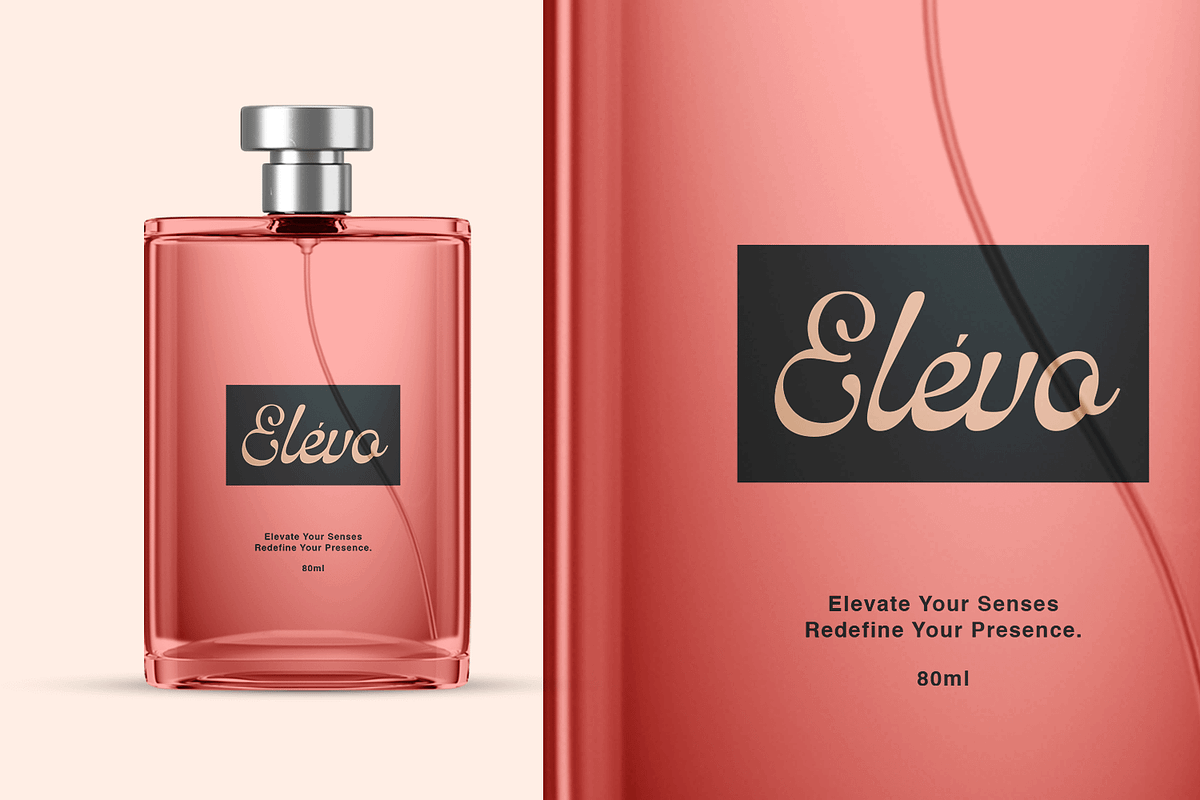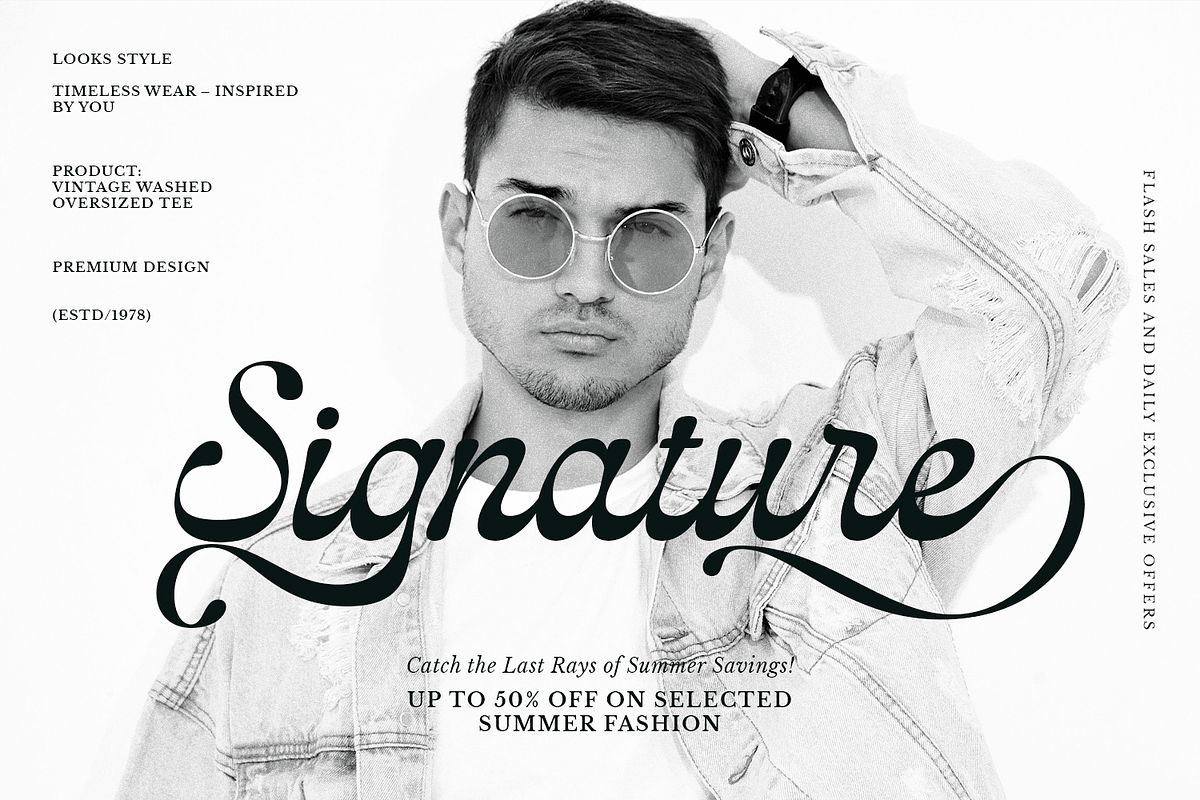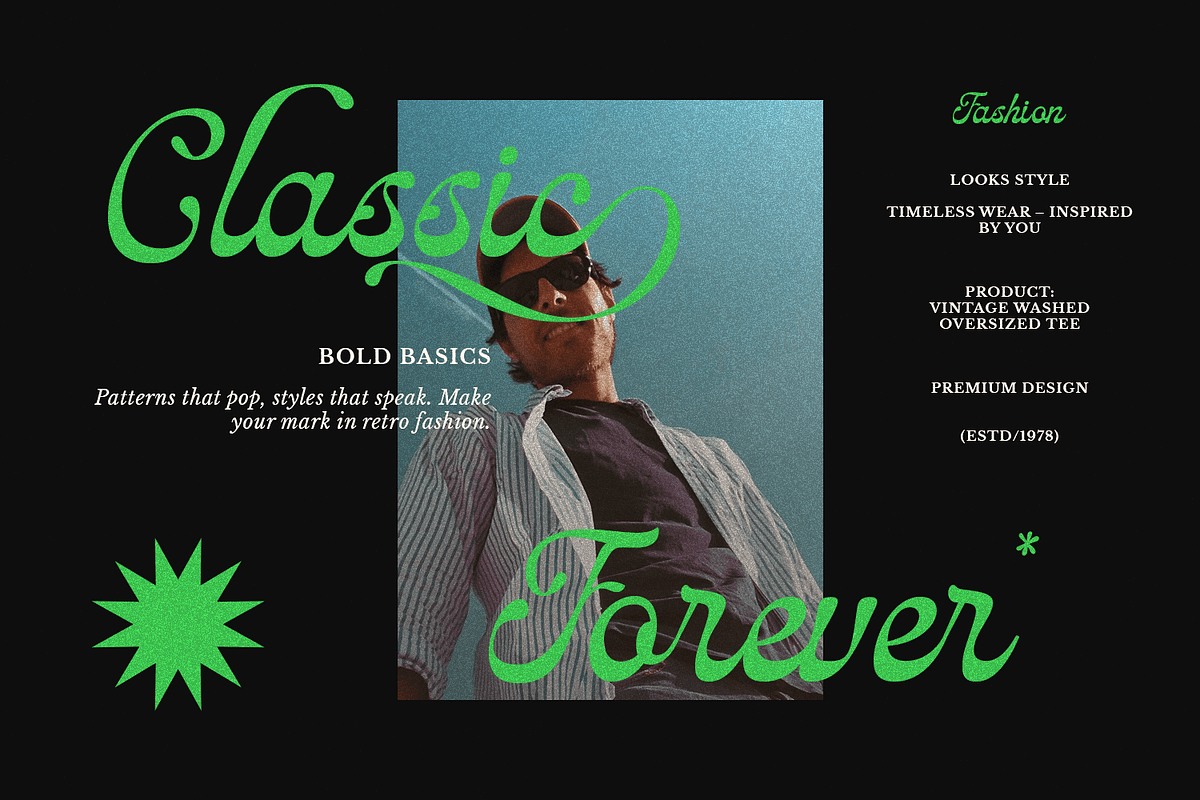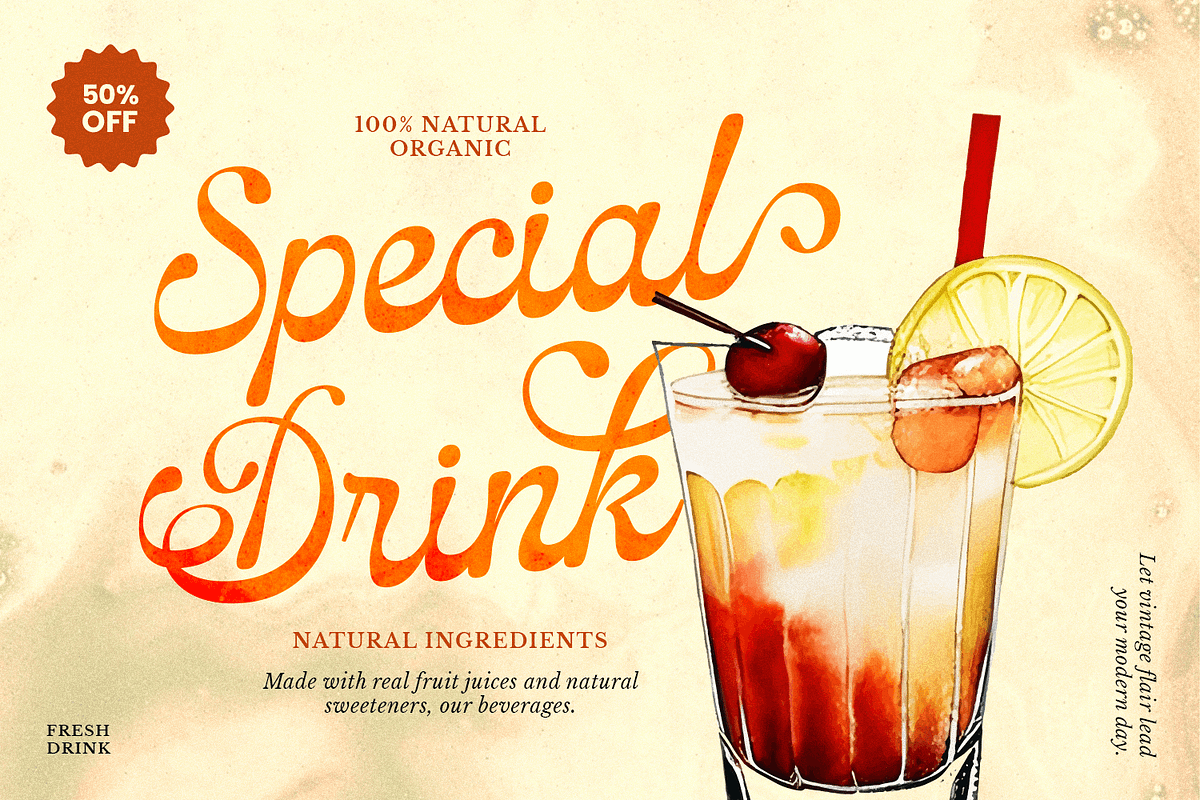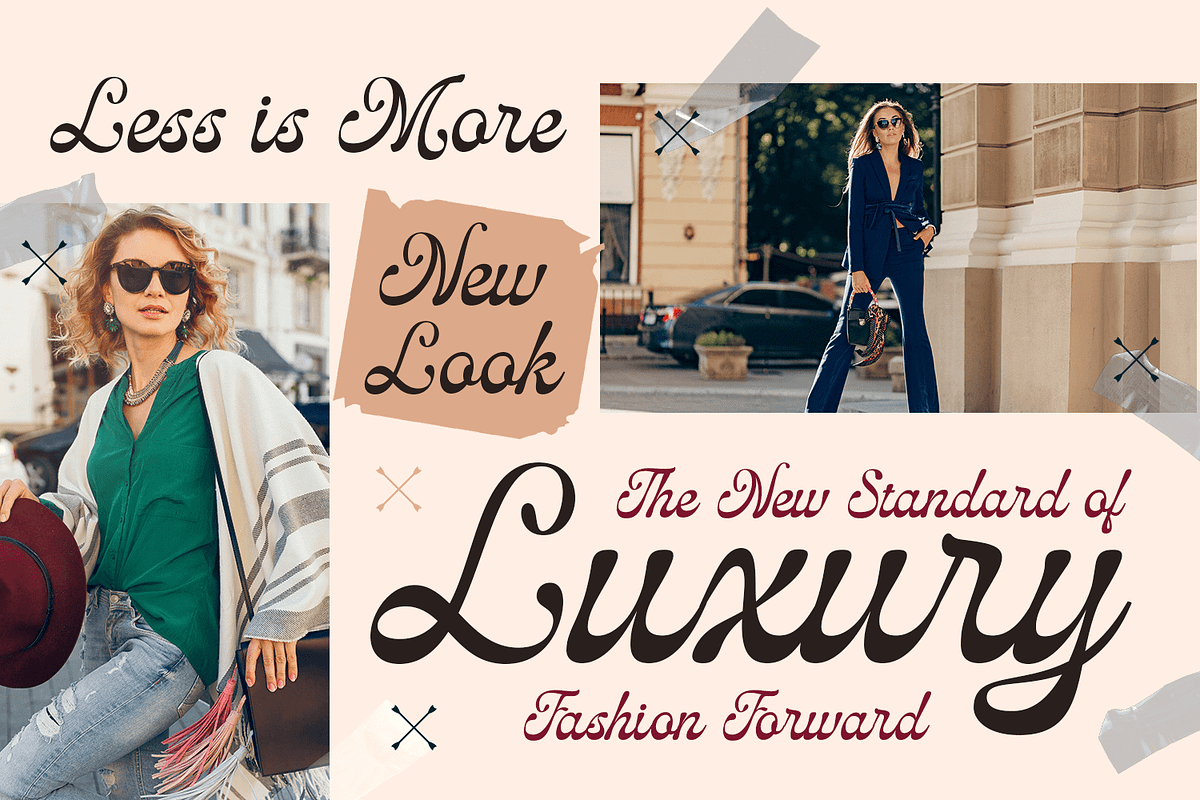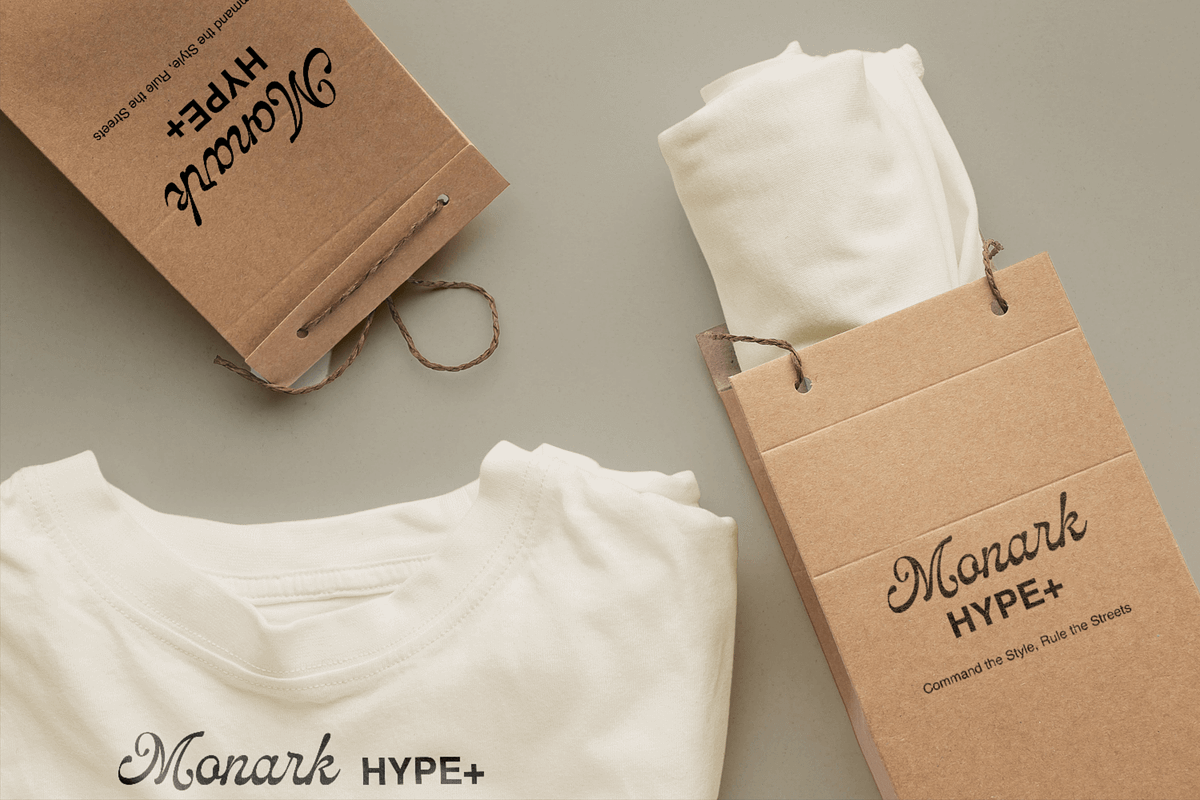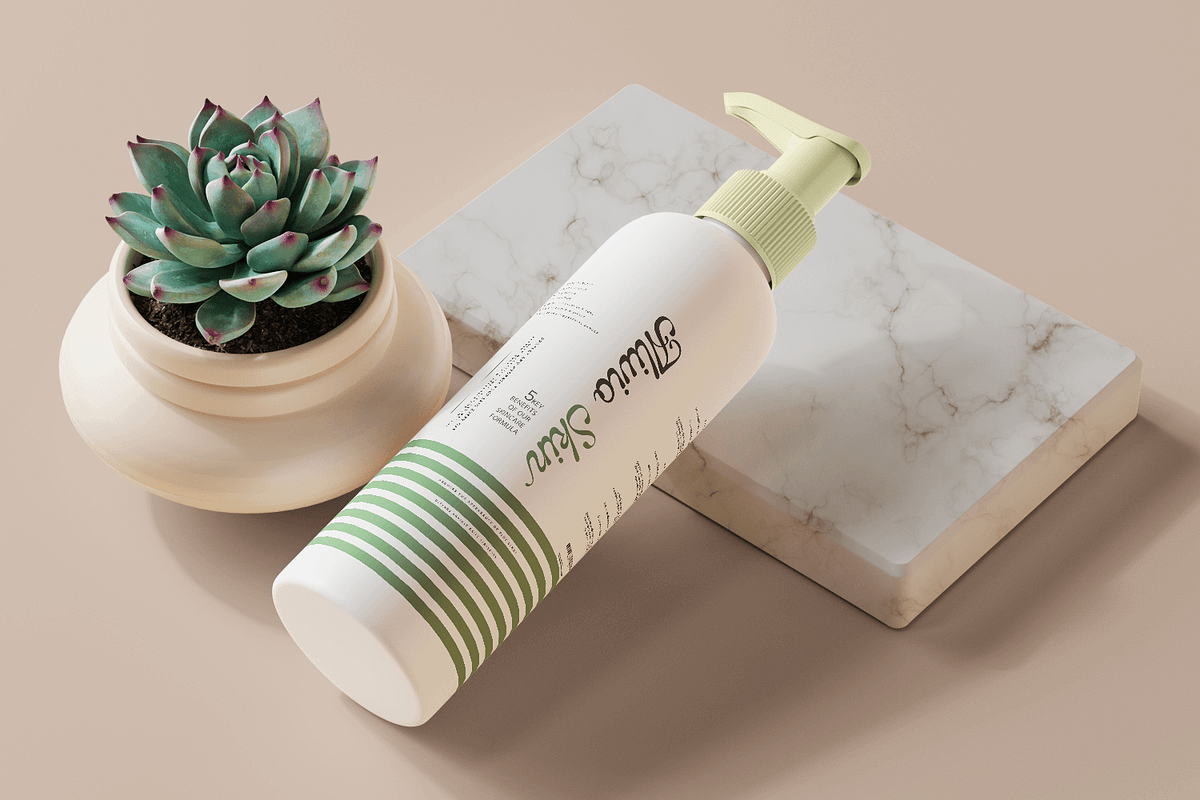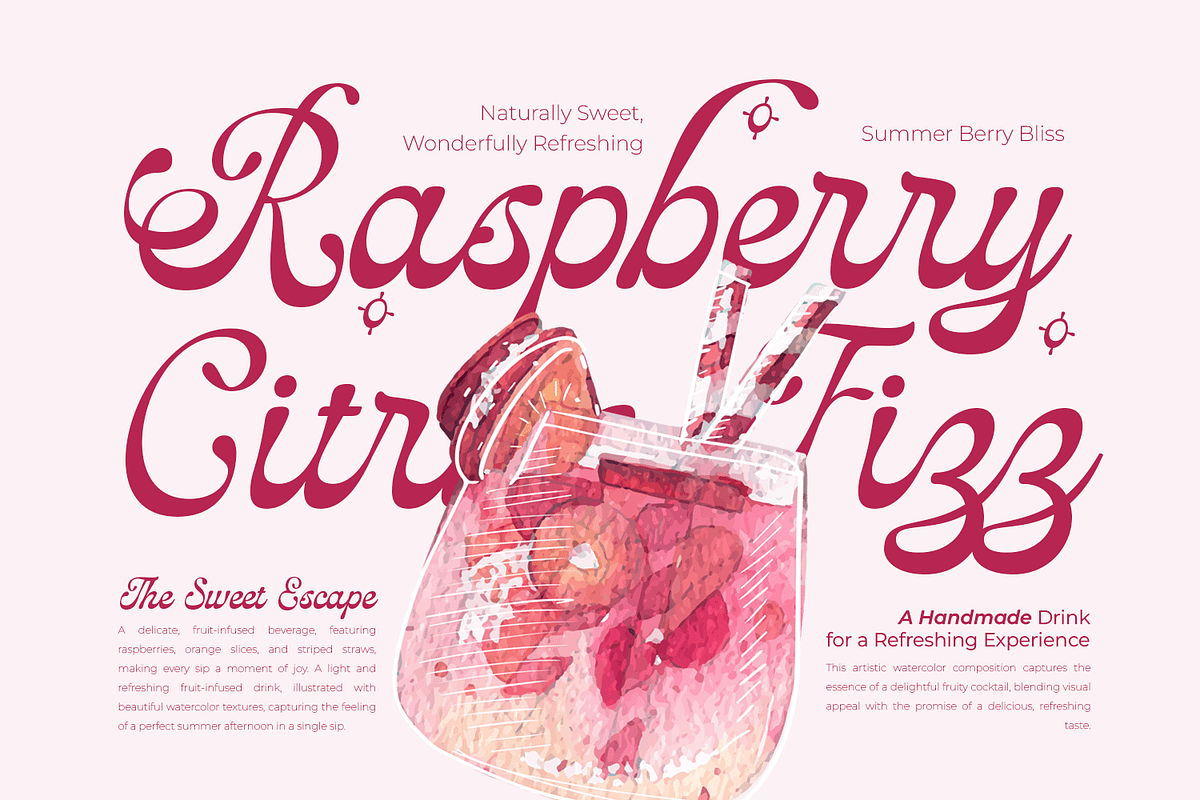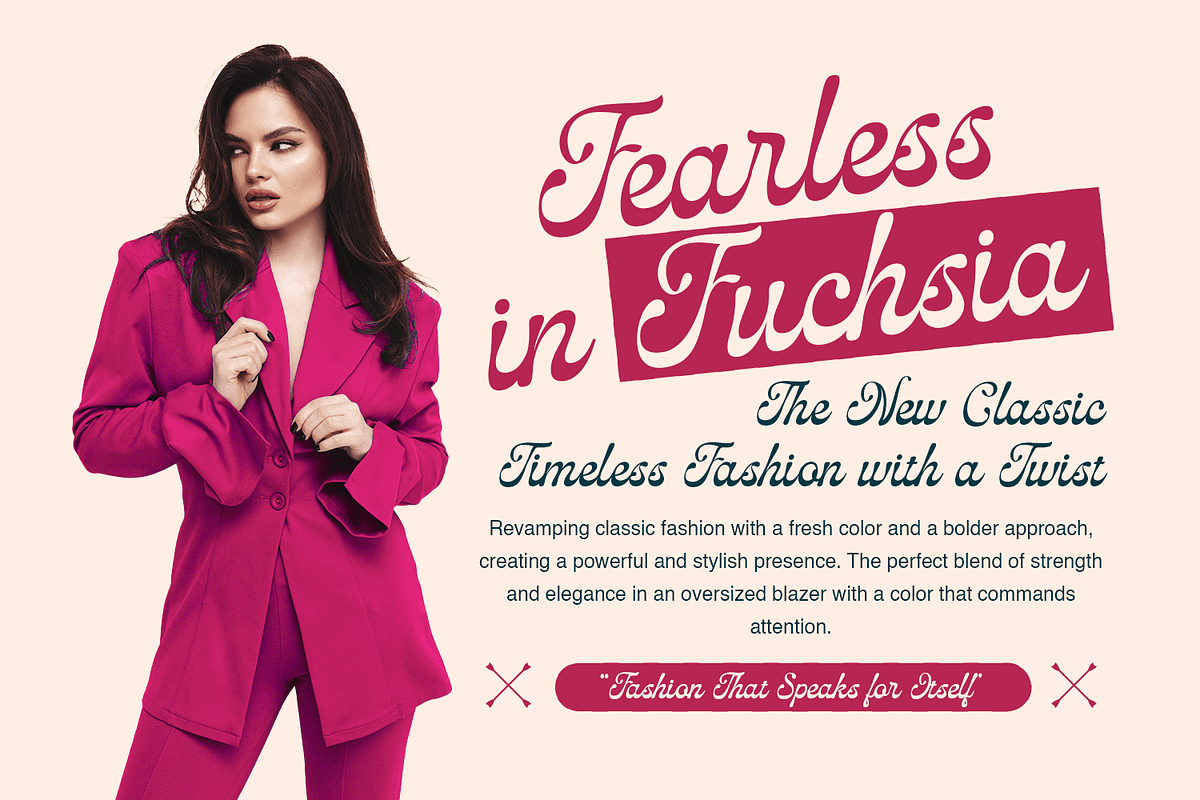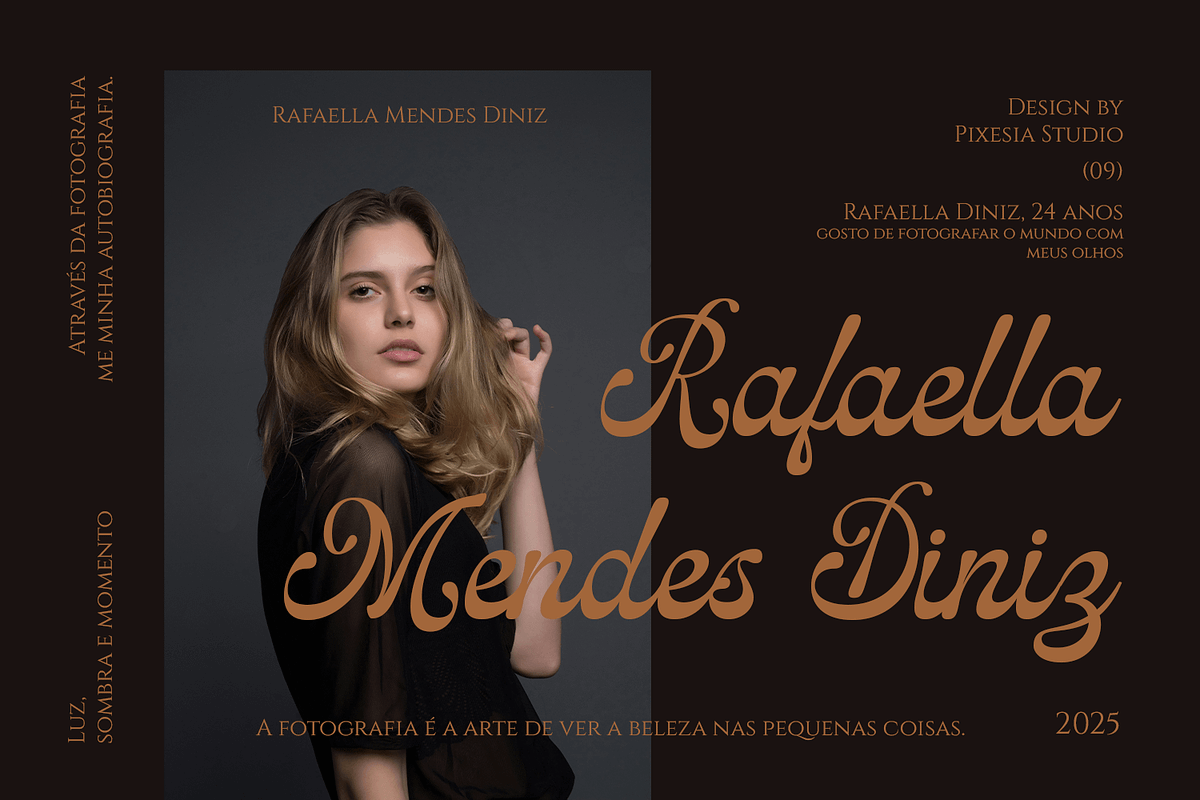
Katelina - Modern Casual Script Font
Introducing Katelina - Modern Casual Script Font
Katelina is a stylish and modern script font with a perfect blend of casual elegance and artistic charm. Its smooth curves and flowing strokes make it ideal for creating eye-catching designs with a friendly yet sophisticated touch.
Katelina is perfectly suited for branding, logotypes, wedding invitations, romantic quotes, labels, social media posts, advertisements, product packaging, product designs, label, photography, watermark, invitation, stationery and any projects seeking casual and aesthetic feel.